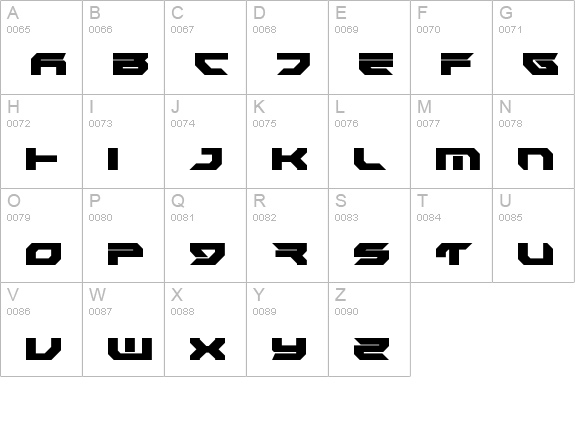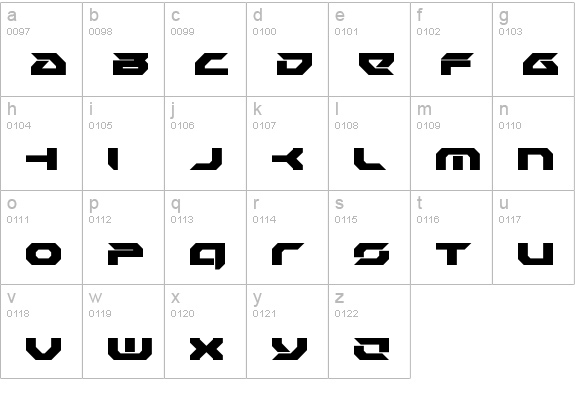
Royal Samurai Font Details
Royal Samurai is a donationware font in the Modern > Techno category, designed by Iconian. It has been downloaded 71 times and is available for Windows, Mac and Linux.
Royal Samurai font is a stunning display typeface that exudes elegance and strength. With its sharp, intricate details and bold lines, this font is perfect for creating eye-catching designs that demand attention. The intricate curves and sharp edges of Royal Samurai give it a regal and powerful appearance, making it ideal for projects that require a touch of sophistication.